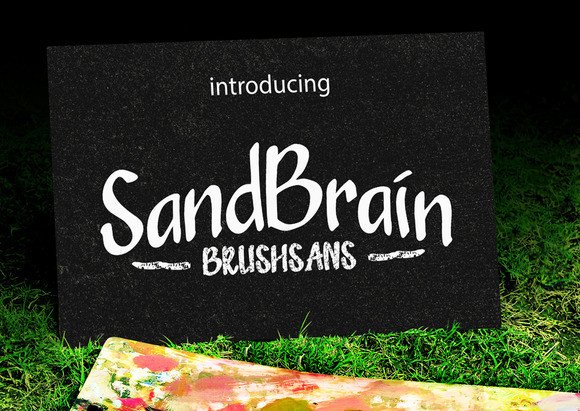
**Unleash Your Artistic Vision with Sandbrain Family Font**
Prepare to be mesmerized by Sandbrain Family Font, a captivating symphony of handwritten artistry designed to elevate your creative projects to extraordinary heights. This exquisite font family, meticulously crafted by the talented hands of barland, boasts four distinct fonts that dance together in perfect harmony.
Introducing Sandbrain Regular, the enchanting foundation of this typographic masterpiece. Its graceful curves and elegant lines invite you to pen enchanting stories and evocative poems. For added drama and impact, embrace the bold allure of Sandbrain Black, where power and sophistication intertwine.
Step into the realm of textures with Sandbrain Rough, where every letter bears the tactile charm of a handwritten note. Its rugged imperfections will add depth and character to your designs, evoking a sense of authenticity. Last but not least, Sandbrain 3D emerges as a visual masterpiece, its立体shape casting an ethereal glow upon your creations.
With Sandbrain Family Font at your fingertips, you'll embark on a typographic adventure like no other. Design eye-catching logos that command attention, craft invitations that radiate warmth and elegance, and create social media graphics that spark conversations. Whether you're a seasoned designer or a budding artist, Sandbrain empowers you to weave your creative magic.